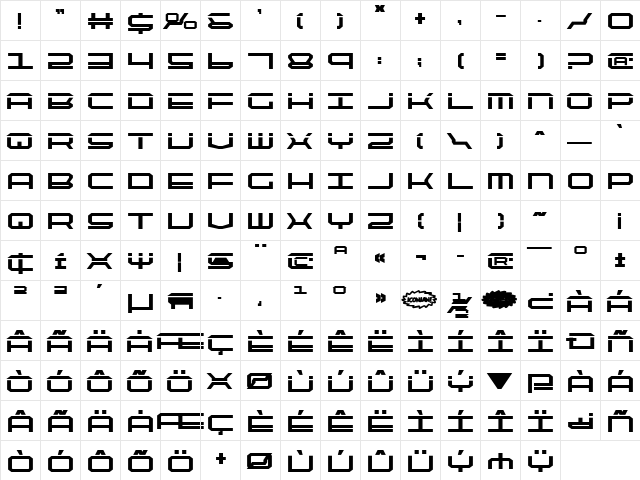
QuickTech Bold Bold
| Designer | Dan Zadorozny |
Design Context for QuickTech Bold Typeface
QuickTech Bold has a distinctly futuristic character, with geometric precision and clean angles that feel at home in technology, gaming, and sci-fi contexts. The heavy weight commands attention and anchors typographic hierarchies.